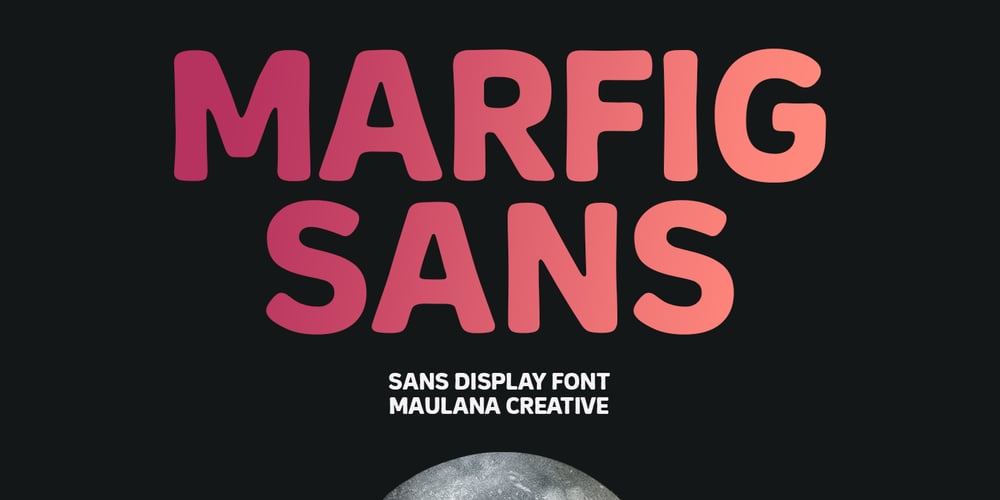
MC Marfig Font Family was designed by Gilang Maulana and published by Maulana Creative. MC Marfig contains 1 styles and family package options. Marfig is a modern fun sans serif font. With a bold stamp effect stroke, fun character with a bit of ligatures and alternates. To give you an extra creative work. Marfig font support multilingual more than 100+ language. This font is good for logo design, Social media, Movie Titles, Books Titles, a short text even a long text letter and good for your secondary text font with script or serif. Make a stunning work with Marfig font. Cheers, Maulana Creative